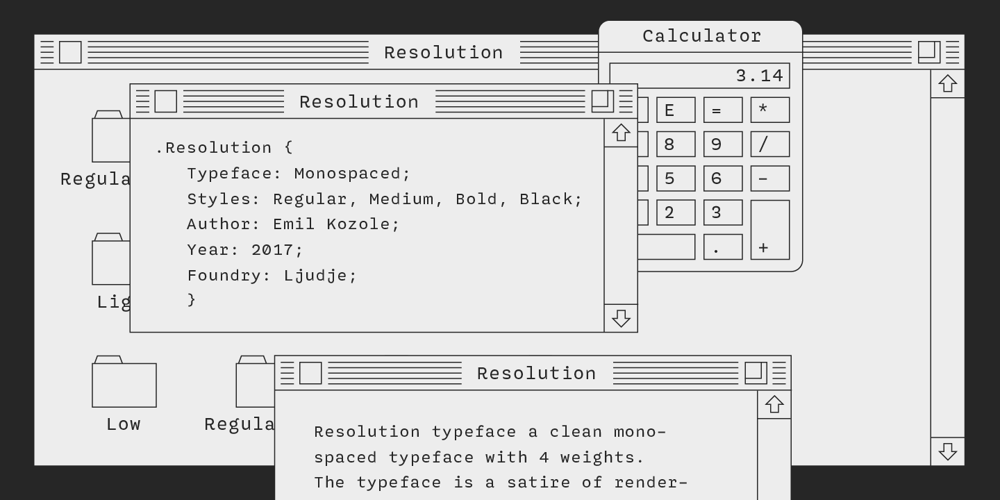
Resolution Font Family was designed by Emil Kozole and published by Emil Kozole. Resolution contains 4 styles and family package options. Resolution is a modern monospaced typeface with 4 weights. The typeface is a satire of rendering of early screens and inherited its name through this sentiment. Since screen resolution is getting higher, this font is a memorial to low resolution screens. Resolution is also an excellent programmer’s choice.